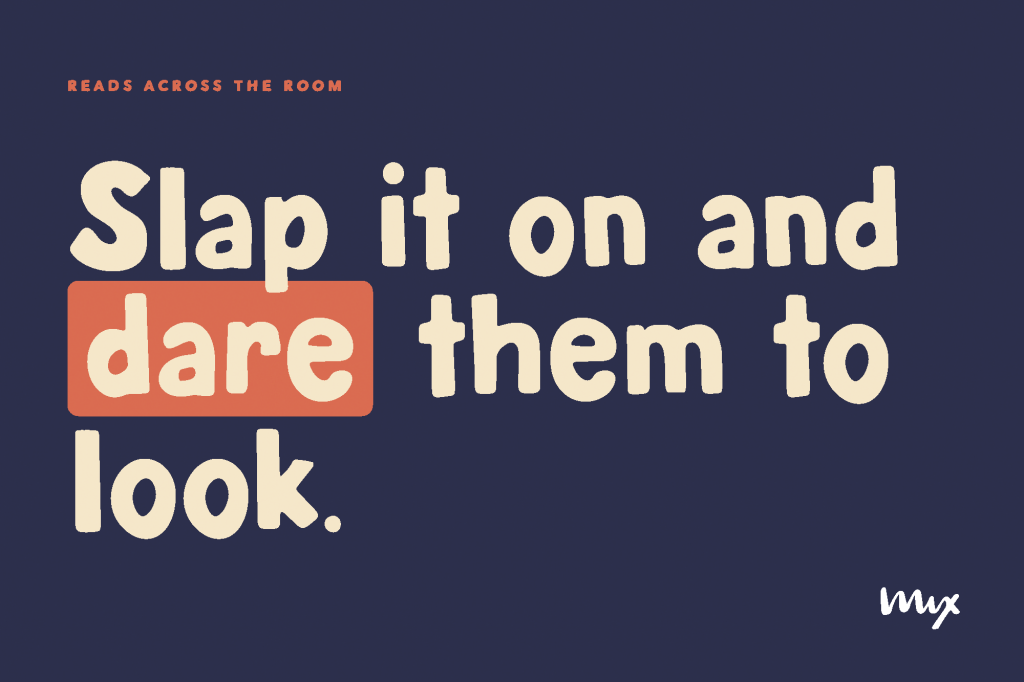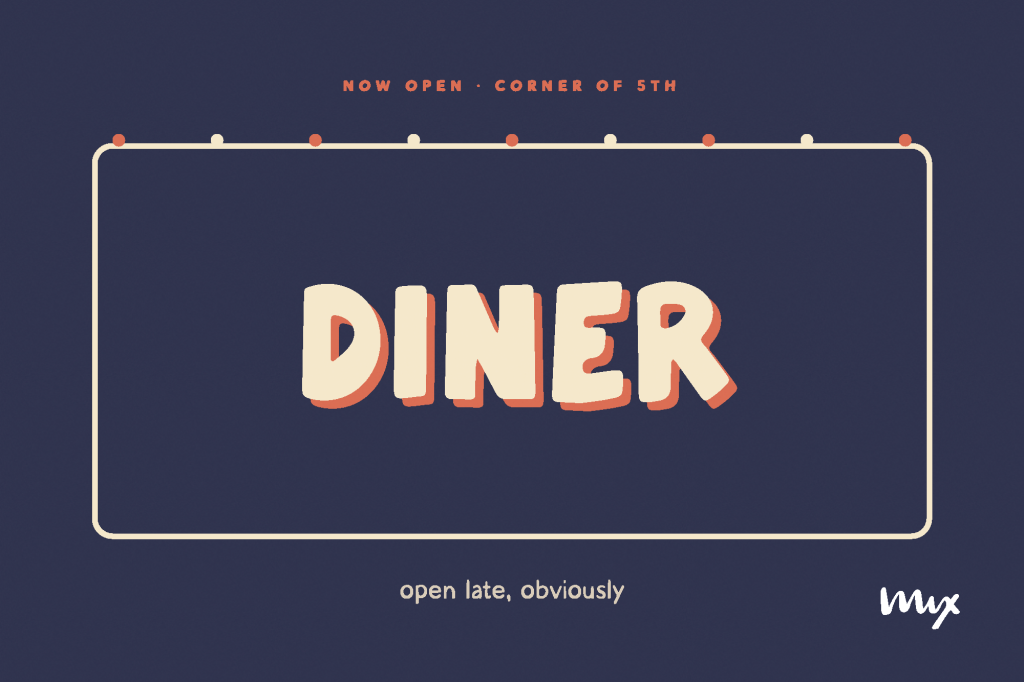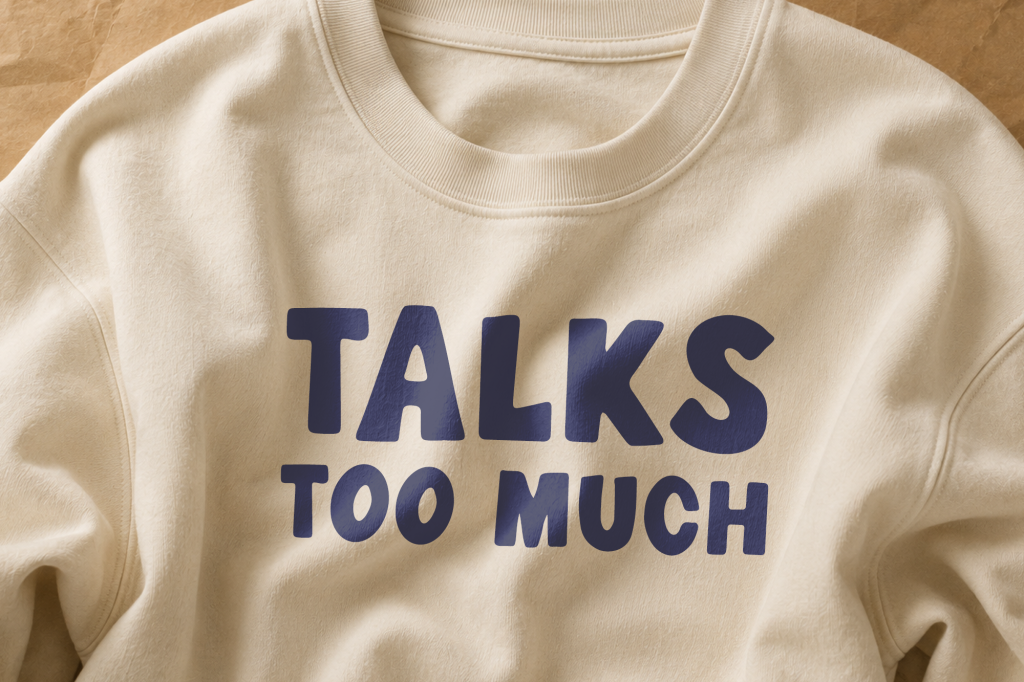
Mix Cosmic Skeptic
Bold ultra-rounded sans, tight and structured. Questions everything, including gravity.
COSMIC SKEPTIC is loud on purpose. Bold, chunky hand-lettering with thick uneven strokes and a wobbly organic baseline, built for anything that needs to shout without yelling: patches, stickers, merch, signage, packaging, headlines.
This font also carries full extended Latin support, accented characters, currency symbols, and typographic punctuation included, so it holds up for multilingual text, not just English headlines.